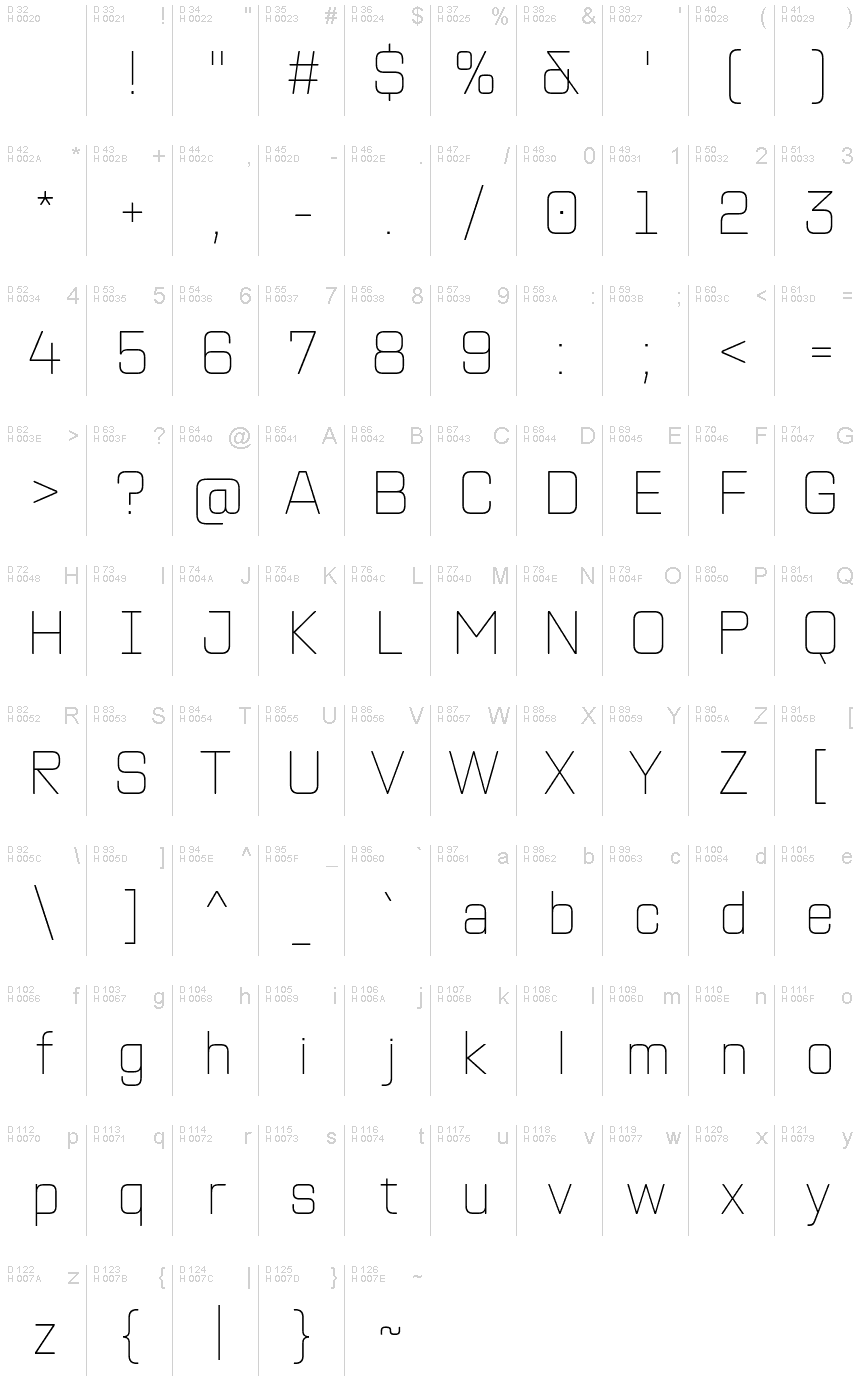
TT Lakes Neue Trial Thin
TT Lakes Neue Thin is the perfect font for those looking for a delicate sans serif typeface. Designed by TypeType Foundry, this ultra-light font is optimized for legibility and readability, making it ideal for projects that require a clean and modern aesthetic. Use TT Lakes Neue Thin to create striking headlines, minimalist logos, or elegant branding materials. Its slim design also makes it suitable for body text in magazines, blogs, and websites. With its versatile style and easy-to-read format, TT Lakes Neue Thin is a great choice for any project that needs a touch of sophistication.